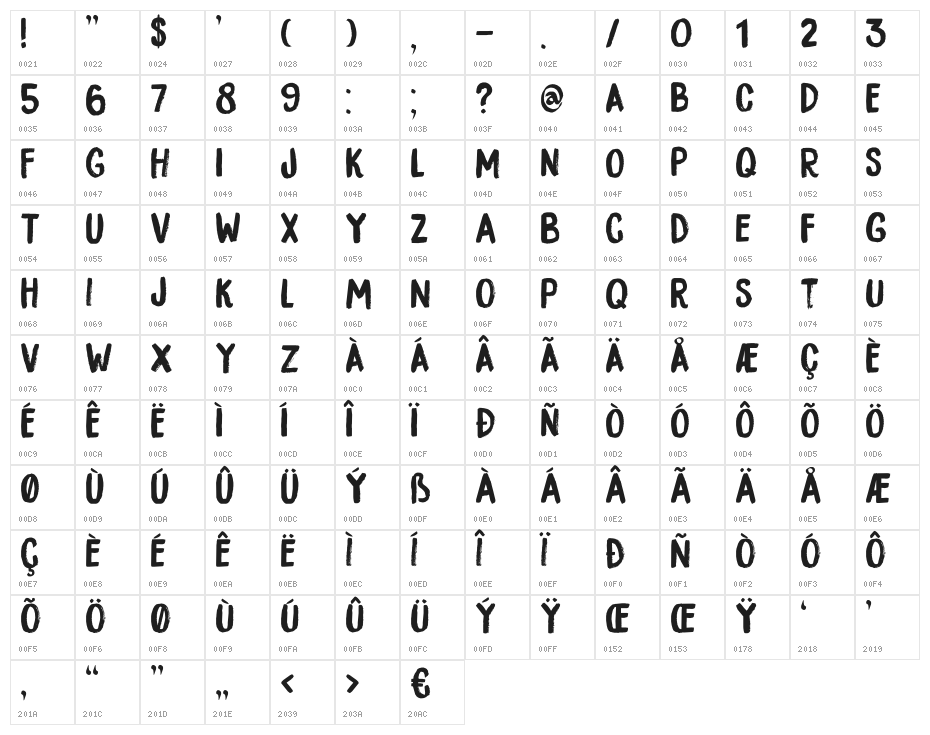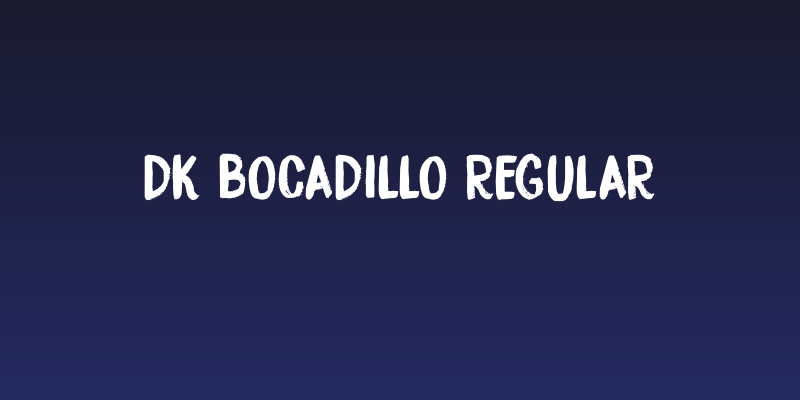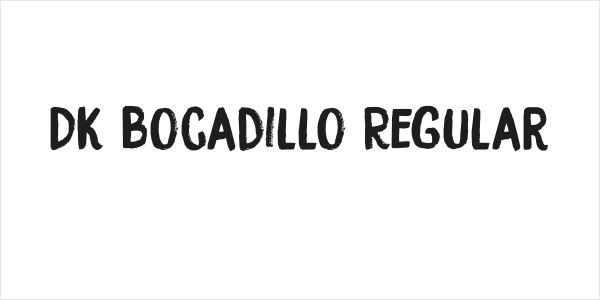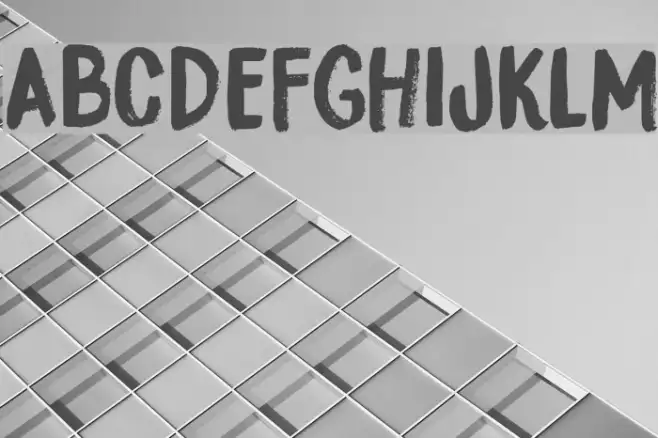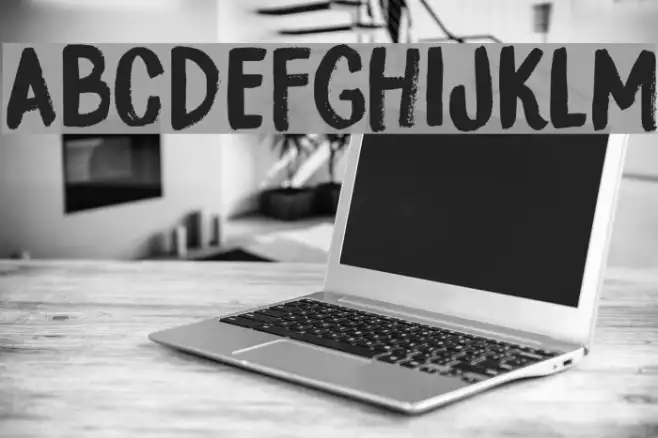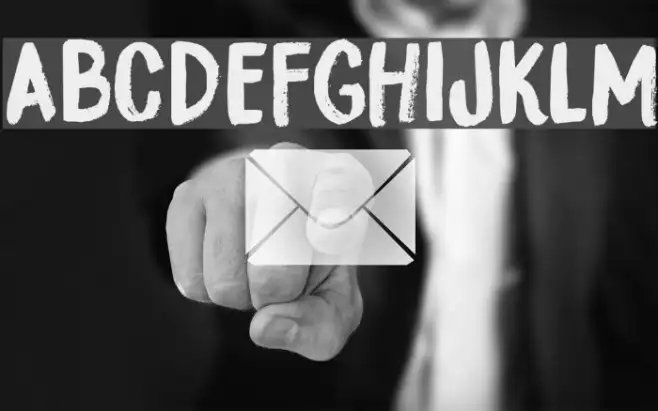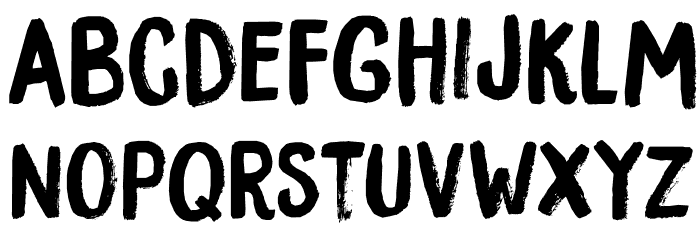
DK Bocadillo Regular Font
DK Bocadillo Regular Description
This font features a bold, hand-painted style with a textured appearance that gives it a rustic and artistic feel. The characters are uppercase and lowercase with a slightly uneven baseline, adding to its handcrafted look. The strokes are thick and have a rough edge, reminiscent of brush strokes, which adds a dynamic and energetic quality. The numbers and special characters maintain the same bold and textured style, ensuring consistency across all elements. This font is ideal for projects that require a strong, eye-catching display with a creative flair.
| Overall Style | Artistic, Rustic |
| Proposed Projects | Ideal for posters, branding, packaging, and any creative project needing a bold statement. |